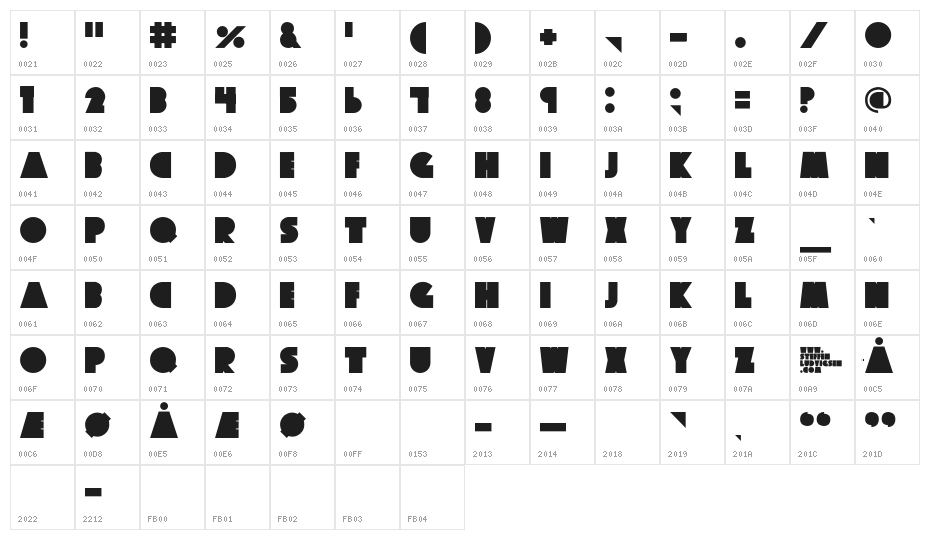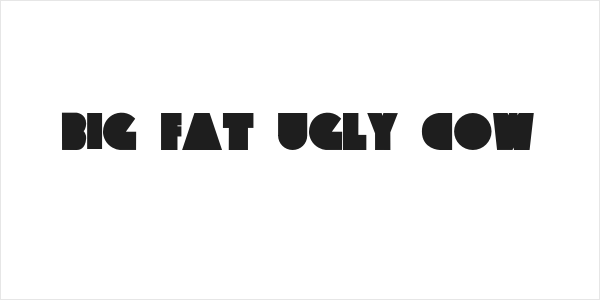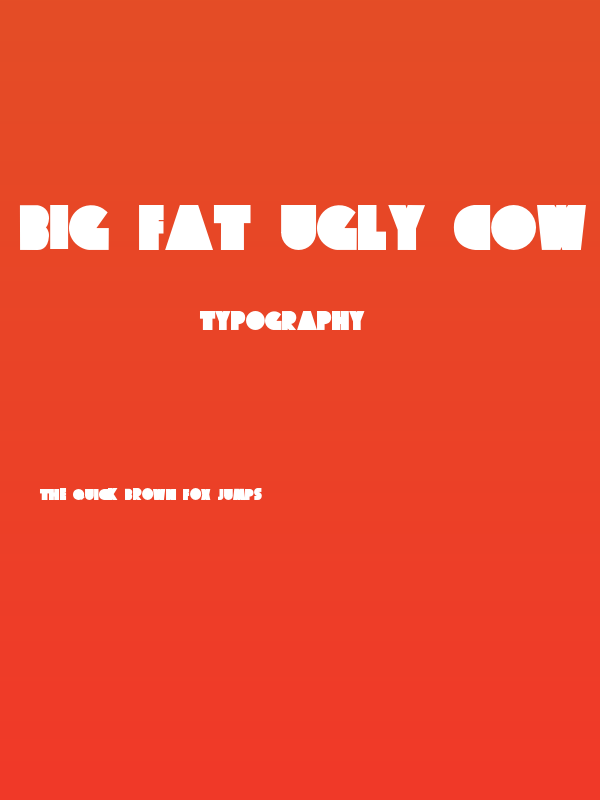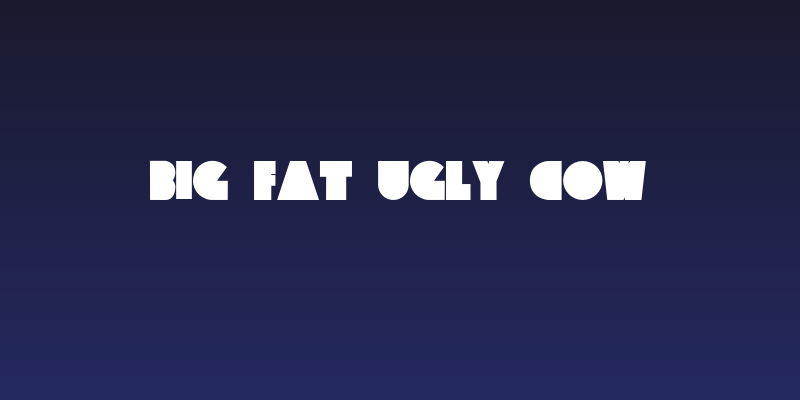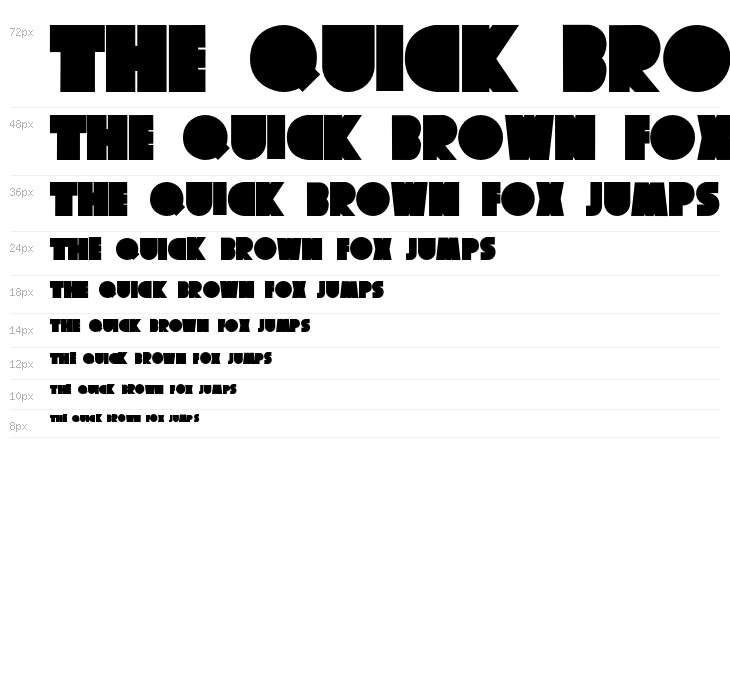
Big Fat Ugly Cow Font
Big Fat Ugly Cow Description
This bold and striking font features a geometric and blocky design, characterized by its thick, uniform strokes and sharp angles. The uppercase letters are particularly prominent, with a strong presence that commands attention. The numbers and special characters maintain the same bold aesthetic, ensuring consistency across all elements. The font's design is modern and eye-catching, making it suitable for projects that require a strong visual impact. Its unique style is both playful and assertive, making it ideal for creative and unconventional uses.
| Proposed Projects | Ideal for posters, logos, branding materials, and any project needing a bold, modern statement. |